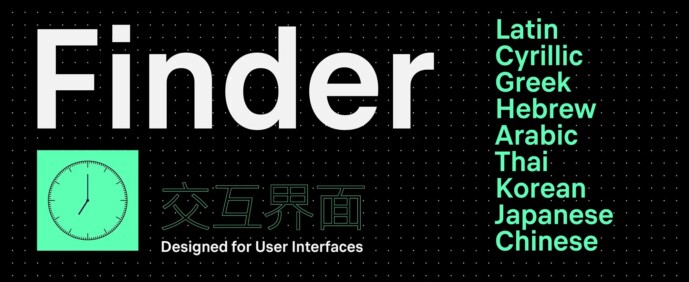
Finder Font Family
Designer: Black Foundry
Finder Font is a versatile sans-serif typeface meticulously crafted for multi-script applications in user interfaces. Designed with an emphasis on clarity at smaller sizes, its open design, large counters, and ample spacing significantly enhance legibility. The typeface’s neutrality ensures a seamless user experience, keeping readers focused and undistracted.
At the core of Finder’s strength lies its robust multi-script capability. Every detail, from design and proportions to spacing, has been precisely planned to create a harmonious multilingual system, accommodating a vast array of the world’s languages. Finder works effortlessly across diverse regions and touchpoints, instilling confidence in its performance.
Finder is ideal for any UI project and a game-changer for international companies expanding into new markets. It ensures a consistent design and communication experience across all platforms, markets, and countries. By maintaining a uniform look and feel, Finder supports a coherent brand identity, enhancing user engagement and satisfaction globally.